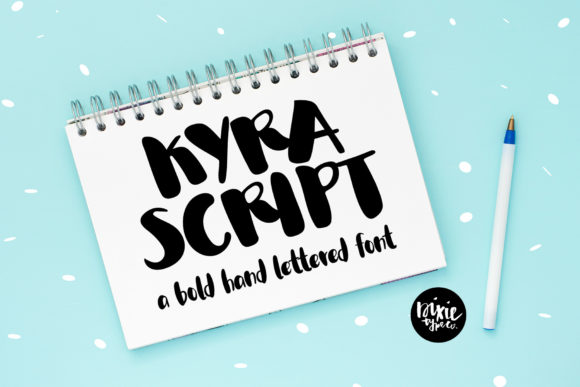
Unleash your creativity and make a striking statement with Kyra Font, an extraordinary display font that exudes charm and sophistication. This captivating font, meticulously crafted by Blushfontco, features a delightful blend of smooth curves and bold, thick letters, making it an ideal choice for fashion-forward brands and editorial designs.
With Kyra Font, you can effortlessly elevate your projects to new heights, leaving a lasting impression on your audience. Its visually stunning characters dance across the page, creating a sense of intrigue and allure that is sure to captivate all who see it. Embrace the power of Kyra Font and witness how it effortlessly transforms your designs into masterpieces.
Kyra Font's versatility knows no bounds. Whether you're creating logos, posters, social media graphics, or eye-catching headlines, this font is your perfect companion. Its bold and distinctive style ensures that your message will stand out amidst the noise, leaving an unforgettable mark on the minds of your readers.
Step into the world of Kyra Font and let your imagination soar. This font is not just a collection of letters; it's an invitation to embark on a creative journey where boundaries dissolve, and possibilities become endless. With Kyra Font by your side, you'll discover a newfound passion for design and unleash a torrent of ideas that will leave you inspired and exhilarated.
Don't settle for ordinary fonts that fail to capture the essence of your brand. Embrace Kyra Font's captivating charm and watch as it transforms your designs into works of art. Its remarkable ability to evoke emotions and create lasting impressions will leave your audience spellbound. Join the creative revolution and make Kyra Font your font of choice today.